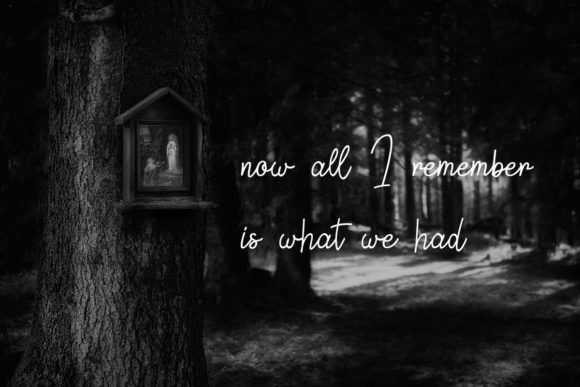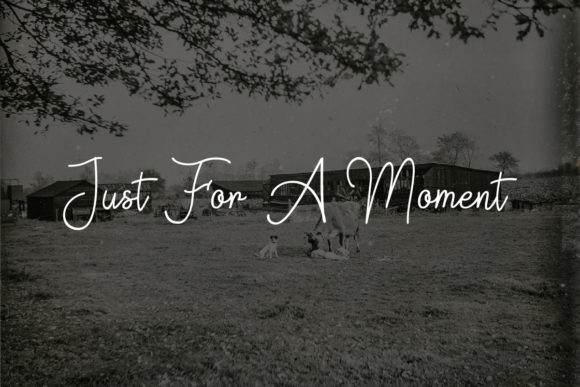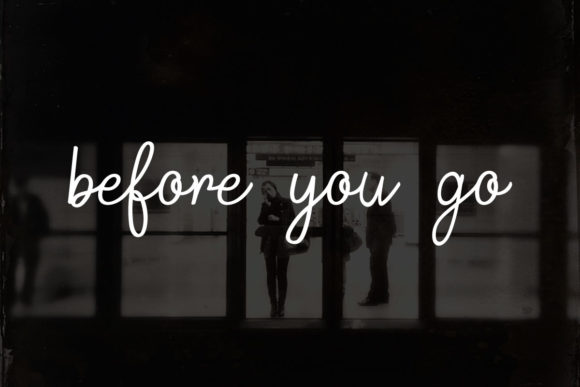
Introduction to Last Hours Font
Last Hours is a cute and delicate script font with a lovely twist.
Fall in love with its romantic charm and use it for wedding invitations, stationery, photography, social media posts, product packaging, greeting cards, and much more .